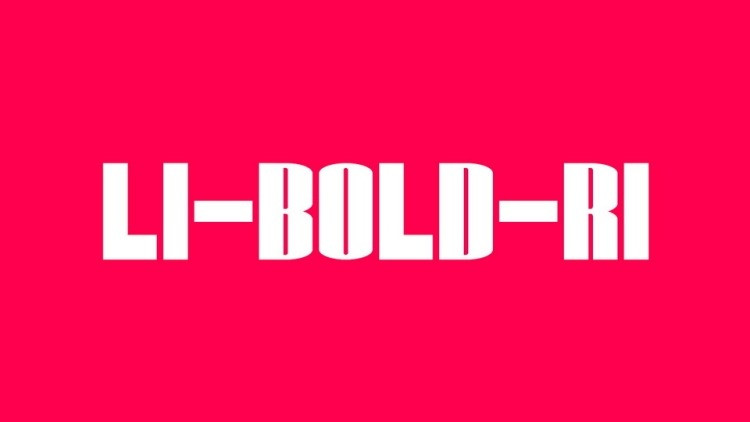
Li-Bold-Ri Sans Serif Font is a bold high contrast sans display typeface with a strong and solid personality. The font is ideal for posters and headline design.